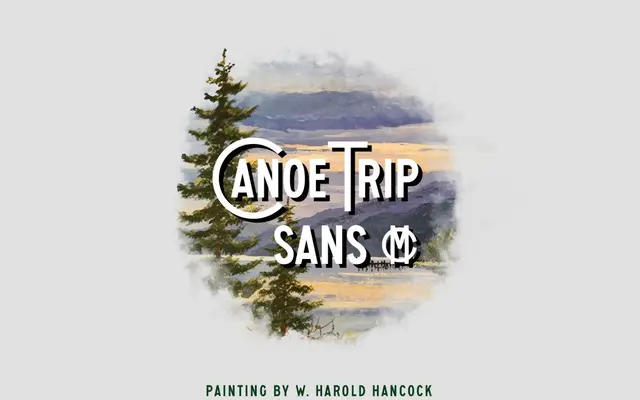
Canoe Trip Sans MC
A display sans-serif from small independent foundry McLetters, with very little product detail available.
Sold at a price range of £12 to £760 depending on company size and use case, Canoe Trip Sans MC is offered by McLetters with minimal descriptive copy. No weights, styles or language coverage are specified on the product page. The informal name suggests a casual or characterful display sans, but it is difficult to assess the design without further information.
Named and presented as a sans-serif; the 'display' subcategory is inferred from the name and the minimal product description suggesting a characterful, likely informal sans.